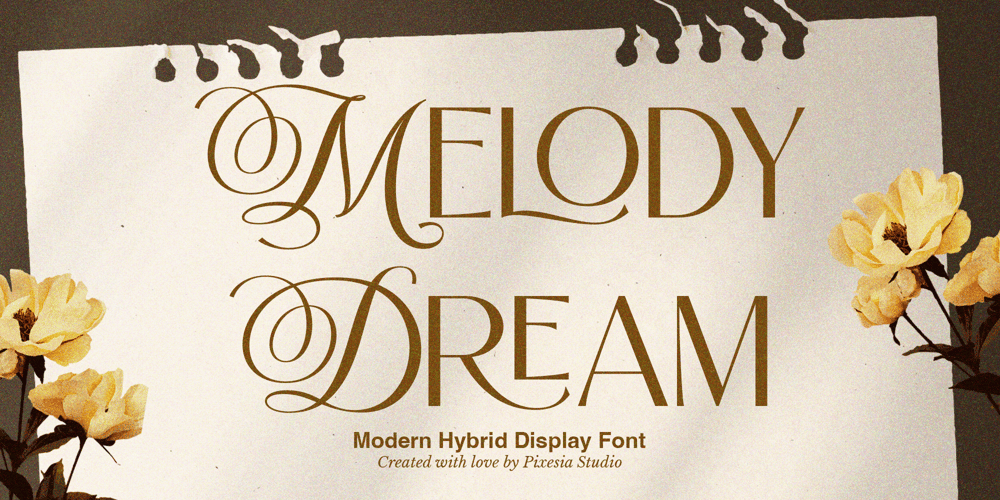
Melody Dream
Melody Dream font
Melody Dream Font Family was designed by Abul Almaududi and published by Pixesia Studio. Melody Dream contains 2 styles and family package options. Introducing Melody Dream – Modern Hybrid FontMelody Dream is a captivating hybrid font that seamlessly merges the elegance of script with the modern simplicity of sans serif. This unique combination creates a harmonious blend of styles, perfect for adding a touch of sophistication to any design project. With its fluid, graceful script letters intertwined with clean and sleek sans serif characters, Melody Dream offers a versatile and visually striking typographic solution.Melody Dream is perfectly suited for branding, logotype, social media posts, advertising, product packaging, label, photography, watermark, t-shirt, website design, invitation, stationery and any projects seeking a beauty of harmony with a modern flair.FEATURES- Stylistic Alternates- Ligatures- Uppercase and Lowercase letters- Numbering and Punctuations- Works on PC or Mac- Simple Installation- PUA Encoded Characters – Easily accessible without additional design software.- Support Adobe Illustrator, Adobe Photoshop, Adobe InDesign, also works on Microsoft Word- Multilingual Support for 68 languages including Afrikaans, Albanian, Basque, Catalan, Danish, Dutch, English, Estonian, Faroese, Filipino, Finnish, French, Galician, German, Icelandic, Indonesian, Irish, Italian, Malay, Norwegian Bokmål, Portuguese, Spanish, Swahili, Swedish, ZuluHope you Like it.Thanks.